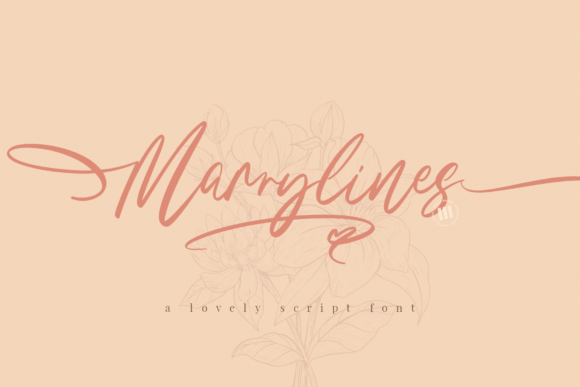
Introducing **Marrylines Font**, a breathtaking script font that will elevate your designs to new heights of elegance and sophistication. Crafted by the talented team at colllabstudio, Marrylines captures the essence of handwritten beauty, with its flowing lines, smooth curves, and stunning alternates.
Step into a world of creative possibilities with Marrylines. Whether you're crafting heartfelt wedding invitations, expressing gratitude with thank you cards, or inspiring with thought-provoking quotes, this font will add a touch of timeless charm to your creations. Its versatility extends to greeting cards, logos, business cards, and any design that calls for a personal, handwritten flair.
Marrylines' varying baseline and gorgeous glyphs create a dynamic and visually captivating effect, ensuring that your words stand out with effortless grace. Its flowing lines mimic the fluidity of pen on paper, evoking a sense of intimacy and authenticity.
Indulge in Marrylines' stunning alternates, designed to add depth and character to your designs. Play with different letterforms, combine styles, and create unique combinations that reflect your artistic vision. The possibilities are endless with this versatile and expressive font.
Unleash your creativity and let Marrylines guide you on a journey of enchanting typography. Its elegant curves will add a touch of sophistication to your wedding invitations, its smooth lines will convey sincere gratitude on your thank you cards, and its stunning alternates will inspire you to create captivating quotes that resonate with your audience.
With Marrylines Font, your designs will blossom with timeless beauty and heartfelt charm. It's the perfect choice for those seeking a font that embodies elegance, versatility, and the allure of handwritten artistry.